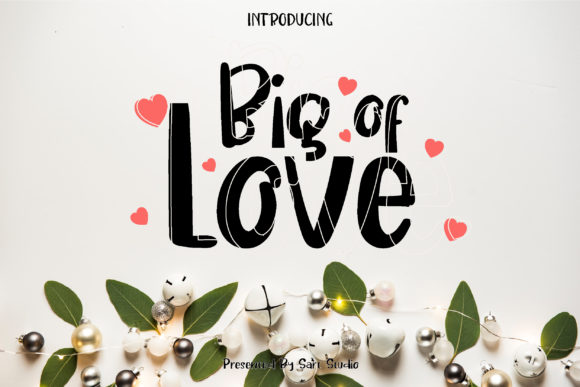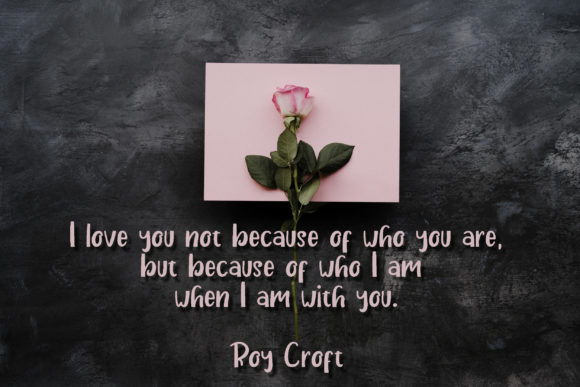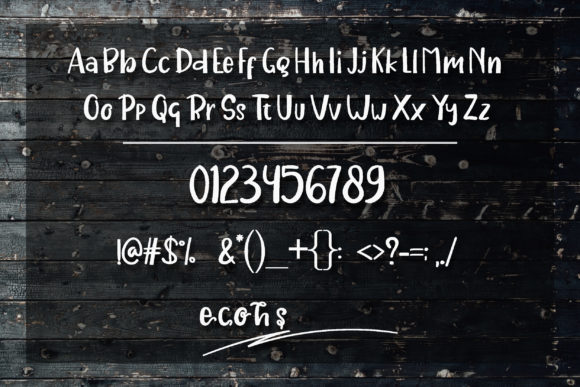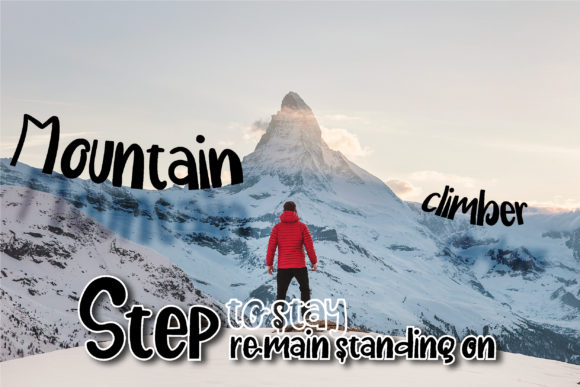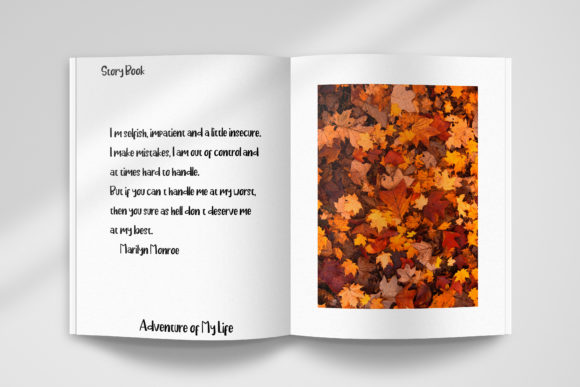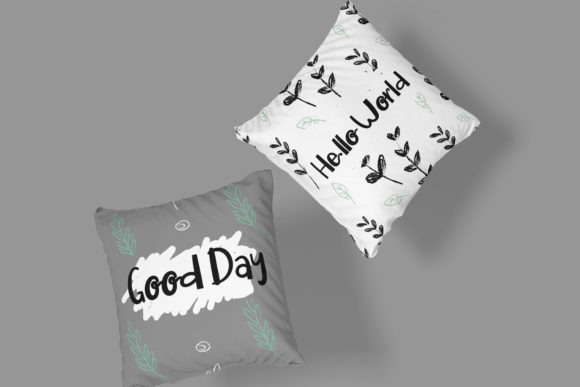
Big of Love Font
About Big of Love Font
Big of Love embodies fun, quirkiness and authenticity. This enchanting handwritten font will turn any creative idea into a true standout.